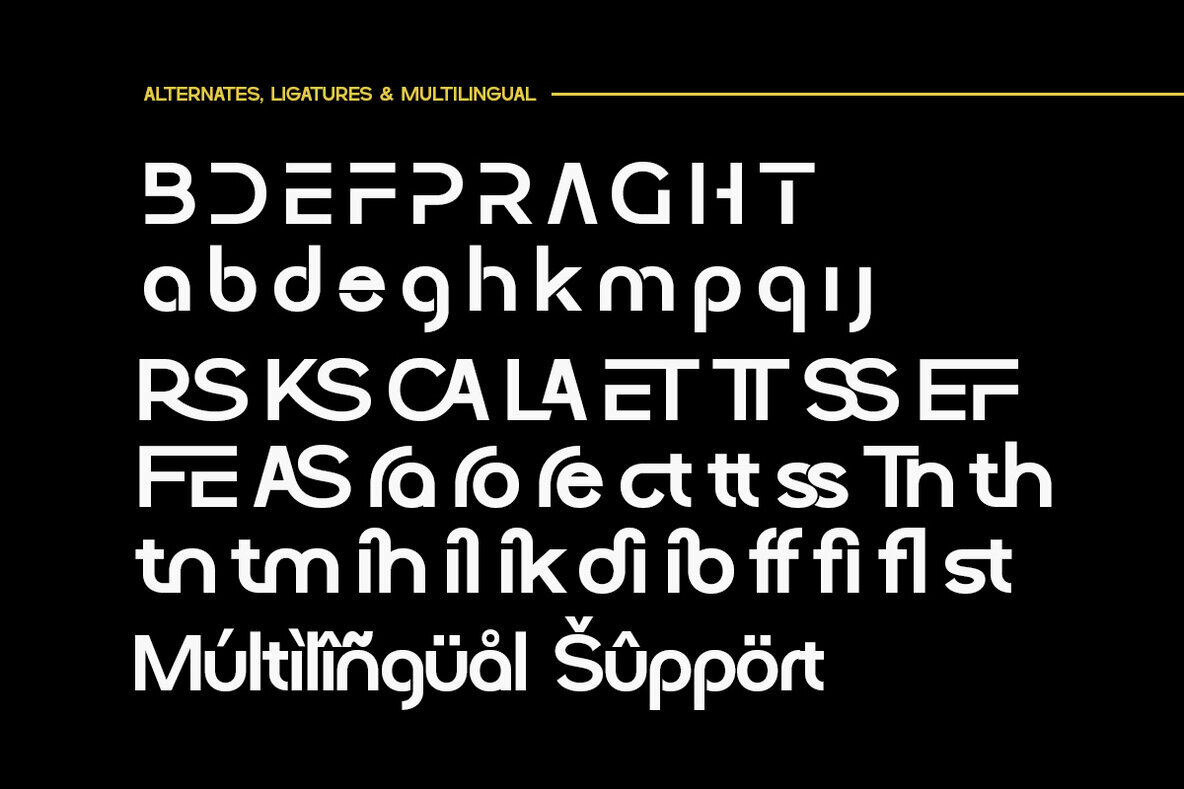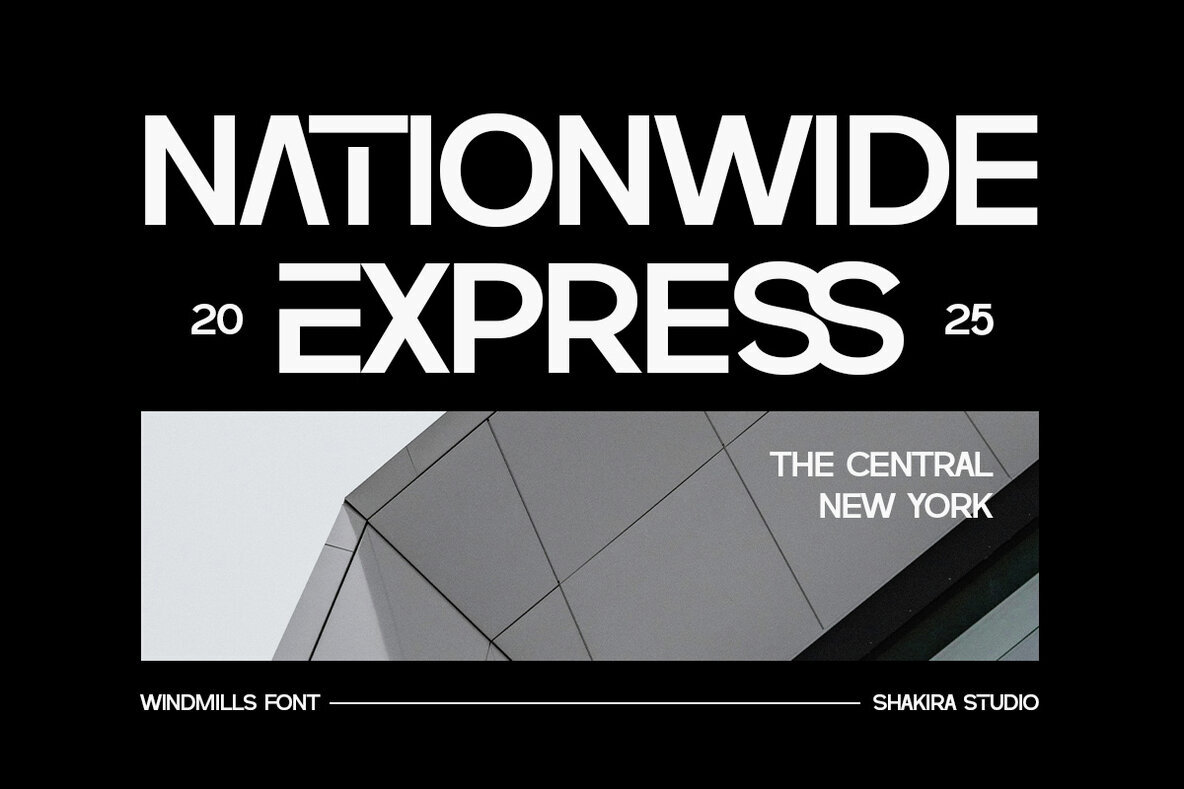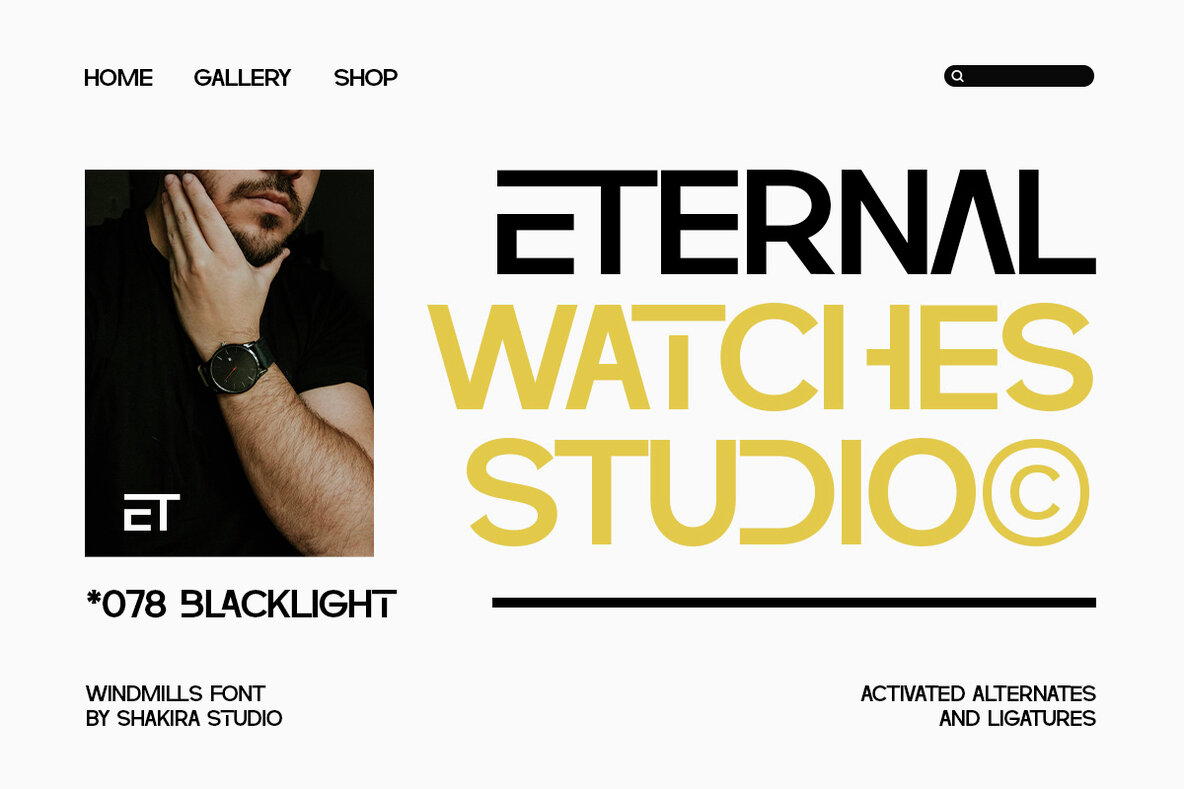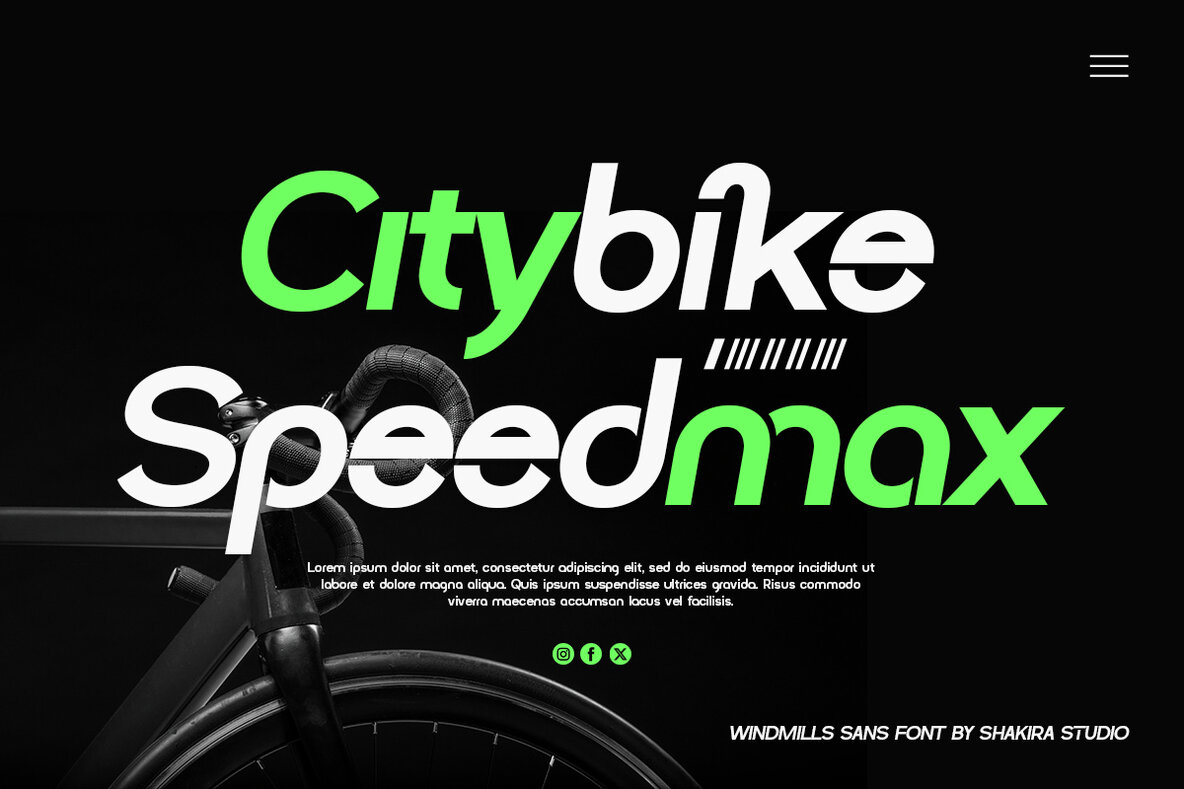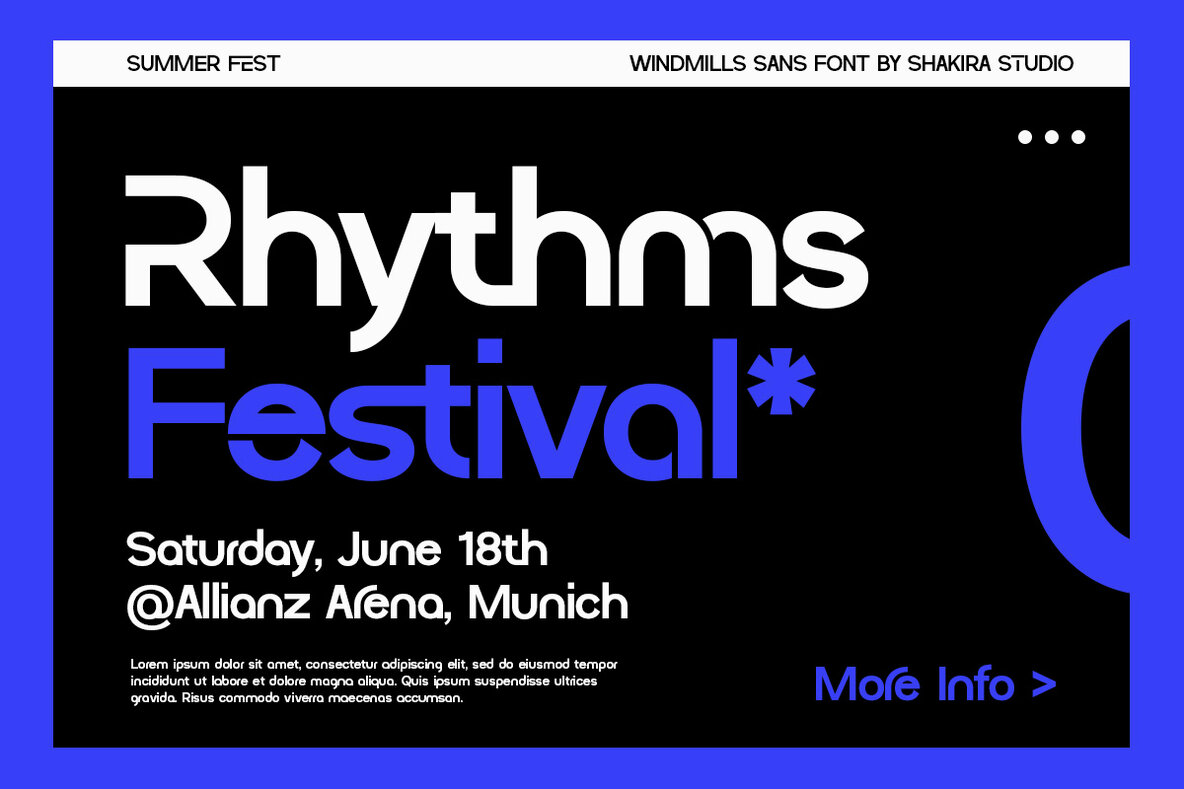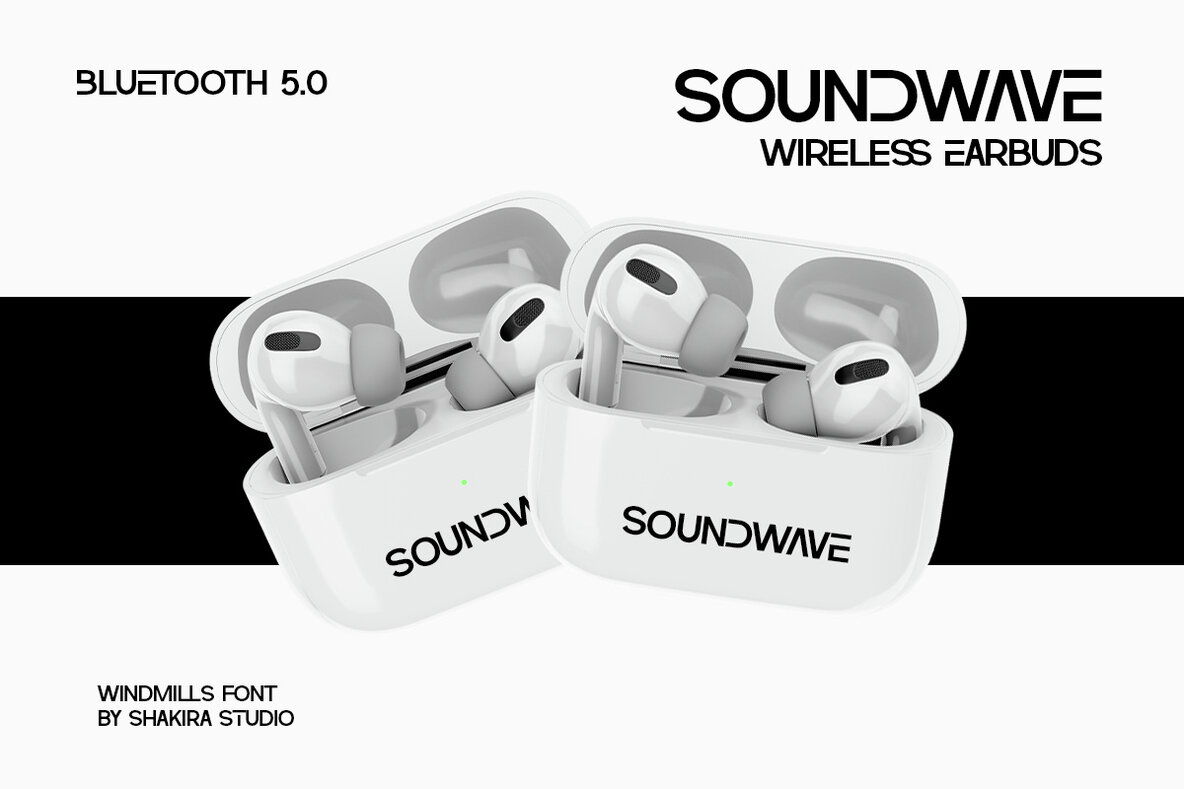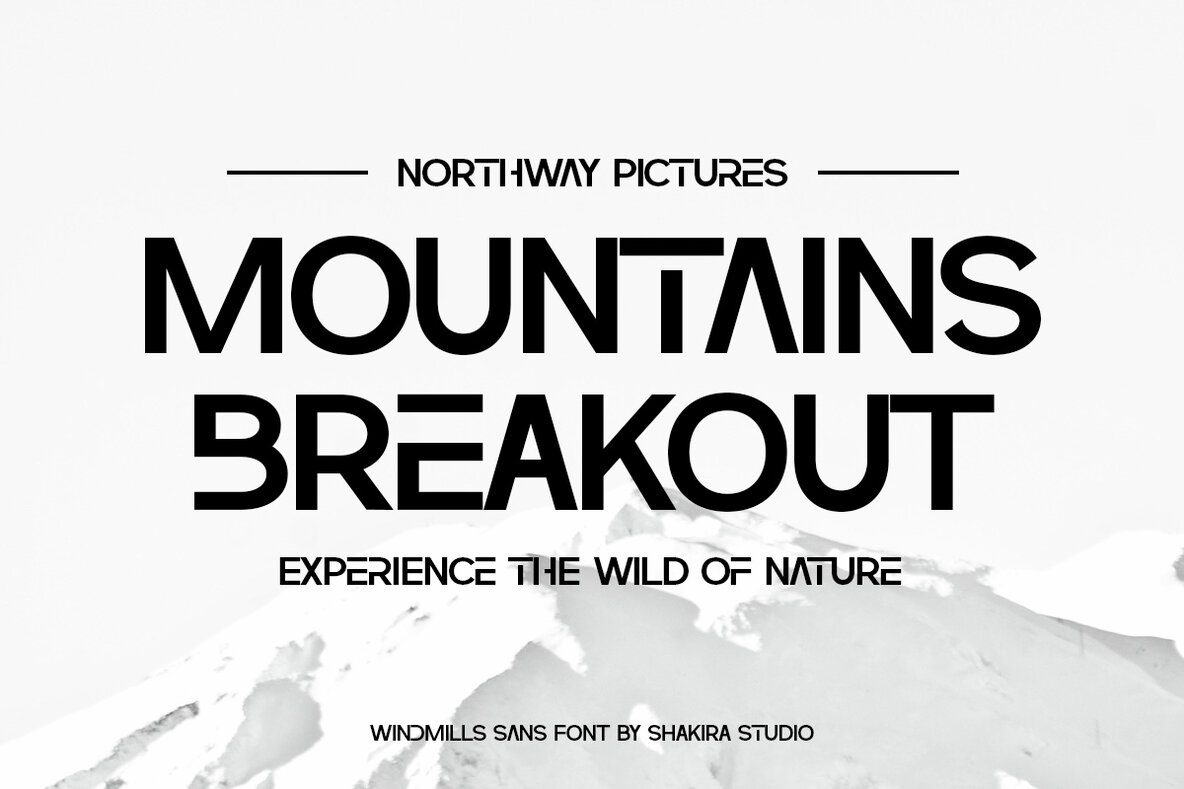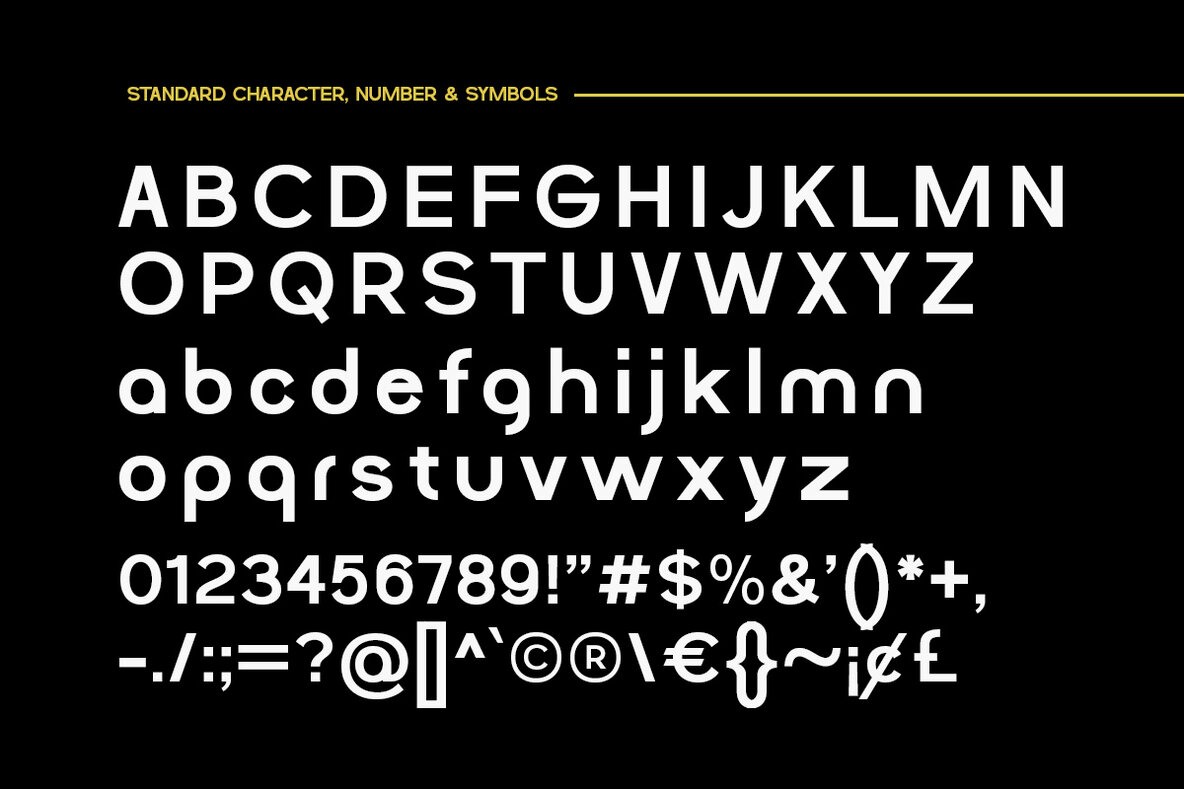
Windmills Font
Windmills is a modern sans serif font that combines elegance and simplicity, available in both regular and italic styles. This versatile typeface is perfect for a wide range of design projects, including branding and editorial work. Featuring stylish alternates and ligatures, Windmills adds a subtle, contemporary touch to your designs. With multilingual support, it caters to a diverse audience, making it suitable for various languages and regions.
Designed to be user-friendly, Windmills includes OpenType features and PUA-encoded characters, ensuring full accessibility across design software like Adobe Illustrator, Adobe Photoshop, Adobe InDesign, and even Microsoft Word. The font supports numerous languages, including Afrikaans, Albanian, Catalan, Croatian, Czech, Danish, Dutch, English, Estonian, Finnish, French, German, Hungarian, Icelandic, Italian, Lithuanian, Maltese, Norwegian, Polish, Portuguese, Slovenian, Spanish, Swedish, Turkish, and Zulu. This makes Windmills a go-to choice for design professionals seeking both functionality and aesthetic appeal in their typographic toolkit.